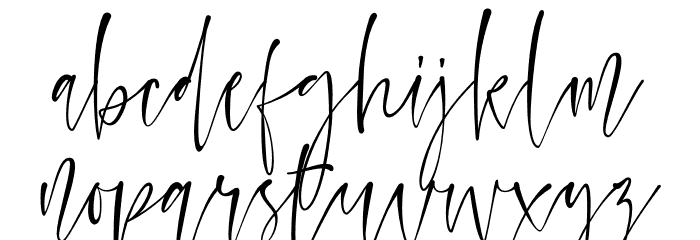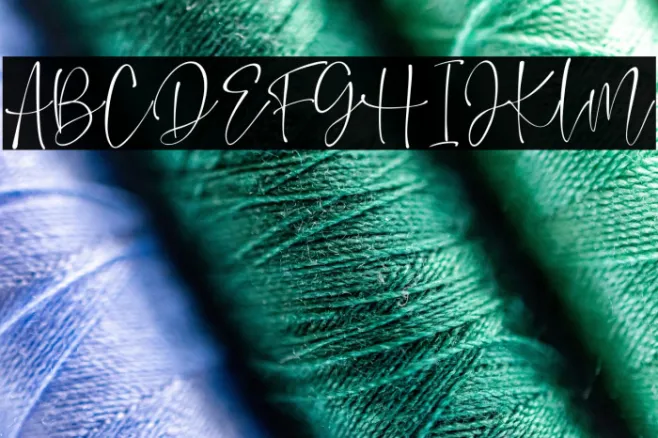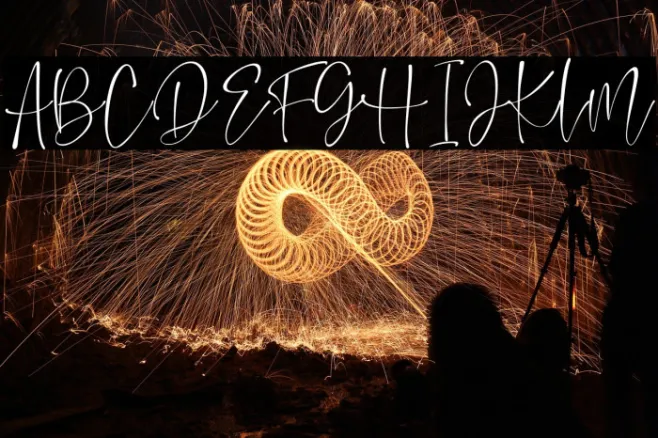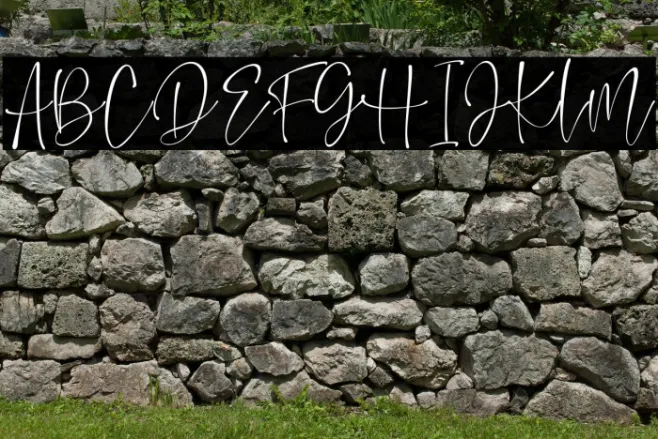
Watercoral Font
This font features an elegant and flowing script style, characterized by its fluid, cursive letterforms that mimic the natural motion of handwriting. The strokes are varied, with some letters exhibiting a graceful loop and others a more straightforward line, creating a dynamic and lively appearance. The uppercase letters are slightly more structured, while the lowercase letters display a charming irregularity, adding to the font's organic feel. The overall design is sophisticated yet approachable, making it suitable for a variety of creative applications.
A flowing, elegant script font with dynamic cursive letterforms.
- Font: Watercoral
- Proposed Projects: Ideal for wedding invitations, greeting cards, personal branding, and elegant packaging designs.
- Category: Script
- Overall Style: Elegant, Handwritten
- Use Case: Logos, Invitations, Greeting Cards